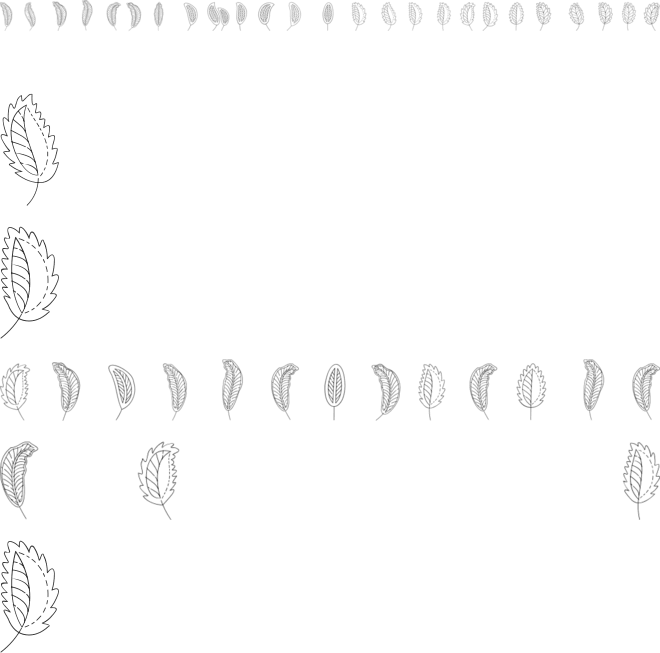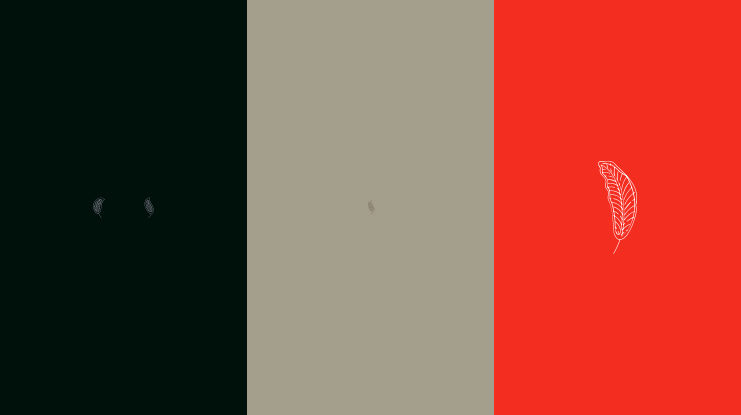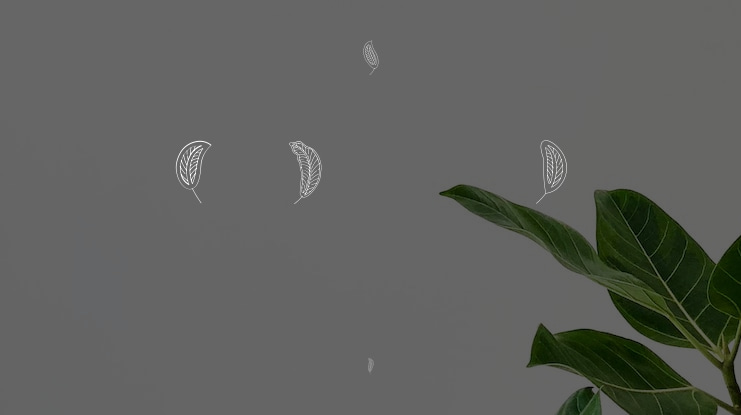
Les Feuilles Mortes Font
Autumn Leaves is a decorative dingbats font with 62 unique leaf designs—perfect for seasonal branding, nature-themed packaging, and cozy editorial layouts.